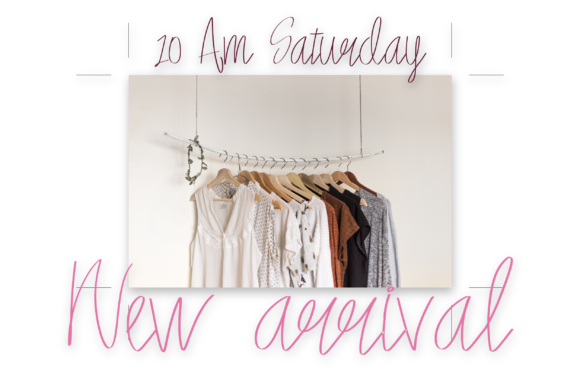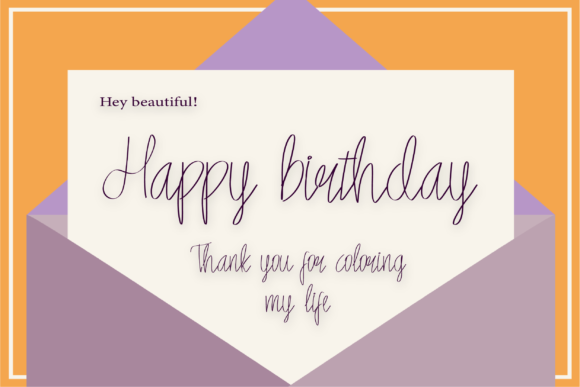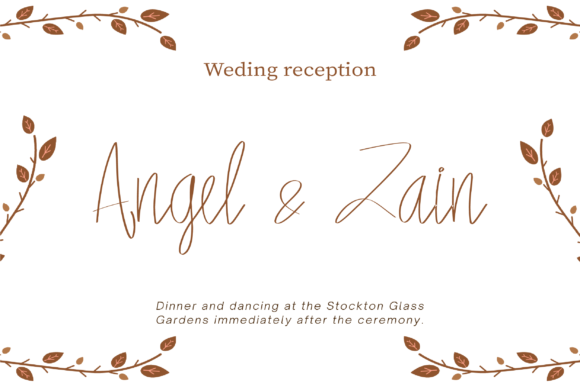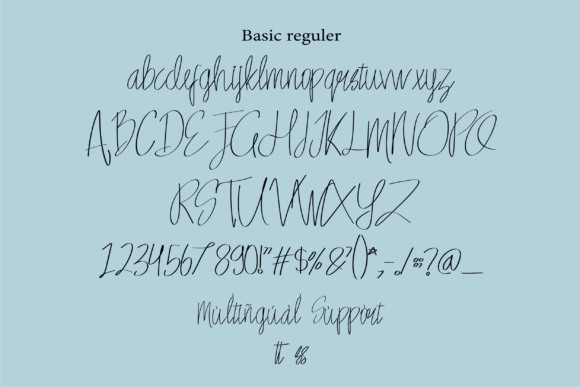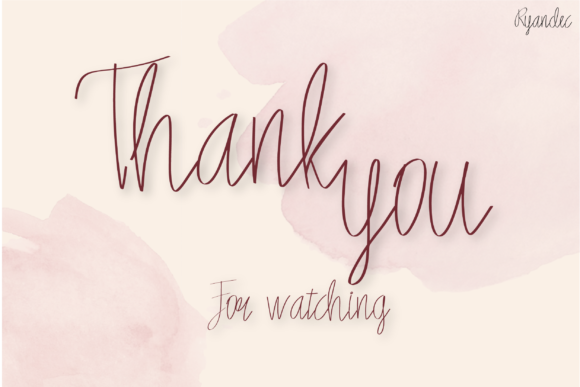
Introduction to Manjalyta Font
Do you ever find yourself stuck in a creative rut, struggling to find the perfect font to bring your design to life? I know I have. But then, like a breath of fresh air, I stumbled upon the Manjalyta Font. Its slim lettered script is a game-changer for any design project that requires a touch of elegance and sophistication.
As a designer, having access to high-quality fonts like the Manjalyta Font is invaluable. Not only does it offer a unique and personalized style, but it’s also free to download, making it an essential design resource for any creative project. Whether you’re working on a wedding invitation, a thank you card, or a logo, the Manjalyta Font is sure to add a touch of magic to your design.
Key Features of Manjalyta Font
- High-quality, elegant design suitable for creative projects and design resources.
- Unique, hand-crafted design elements that add a touch of sophistication to any project or design resource.
- Perfect for use in graphic design, digital art, and other creative projects that require a high-quality, elegant font.
Honest Review: Manjalyta Font
I recently stumbled upon the Manjalyta Font, and I’m excited to share my honest thoughts on this free download. As a designer, I’m always on the lookout for high-quality fonts to elevate my creative projects. Manjalyta Font definitely delivers.
- ✨ The font’s unique design makes it perfect for modern and sleek projects. I love the way it adds a touch of sophistication to any text.
- ✨ The Manjalyta Font is incredibly versatile, suitable for both web and print designs. Its transparent background makes it a great choice for layered designs.
However, I do have a few minor complaints. ⚠️ The font might not be suitable for projects that require a more traditional or classic look. Additionally, the font family is quite extensive, which can be overwhelming for some users.
Overall, I’m impressed with the Manjalyta Font. Its high quality, unique design, and free download make it an excellent addition to any designer’s toolbox. Whether you’re working on a personal or commercial project, this font is definitely worth checking out.
Compared to Manjalyta Font, Great Vibes has a more refined and luxurious feel, making it suitable for high-end design projects. While Manjalyta Font has a more playful and whimsical tone, Great Vibes exudes a sense of elegance and sophistication.
Compared to Manjalyta Font, Alex Brush has a more refined and delicate feel, making it suitable for projects requiring a touch of elegance and sophistication. While Manjalyta Font has a more playful and whimsical tone, Alex Brush exudes a sense of sophistication and refinement.